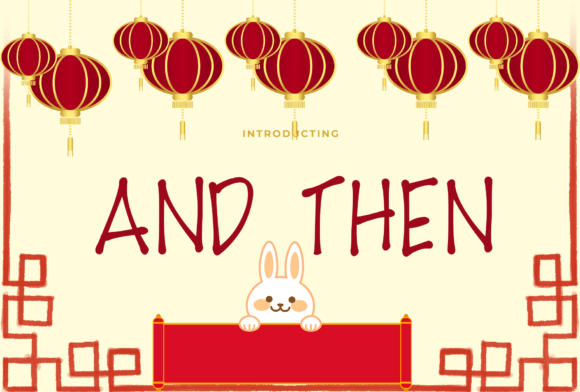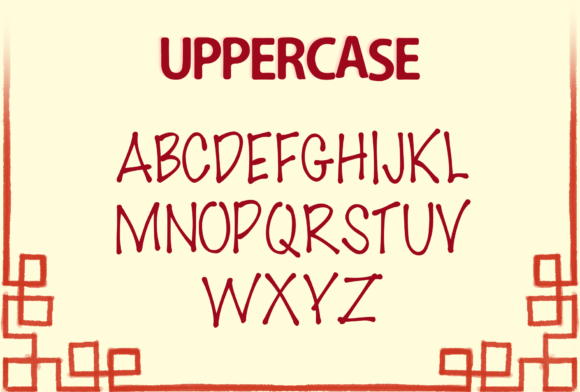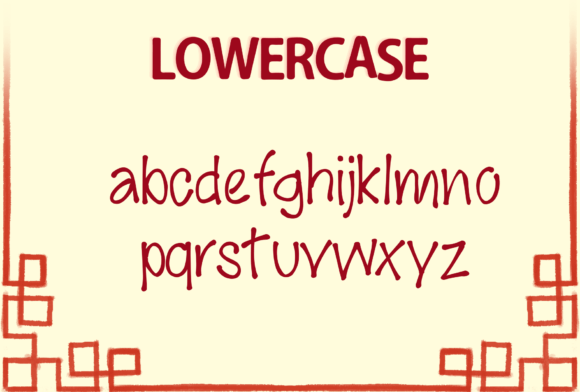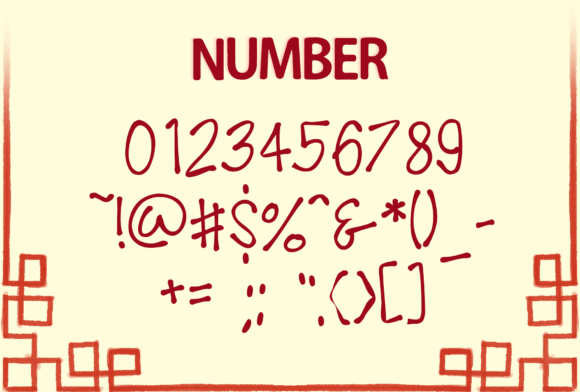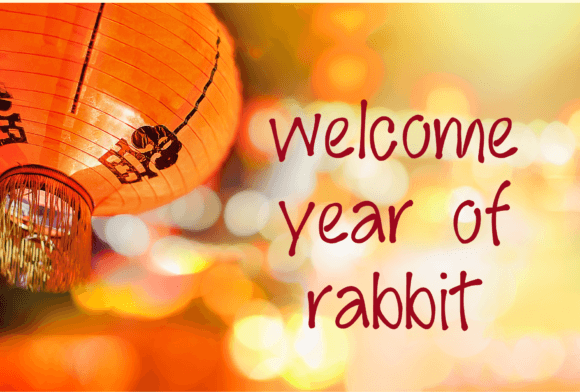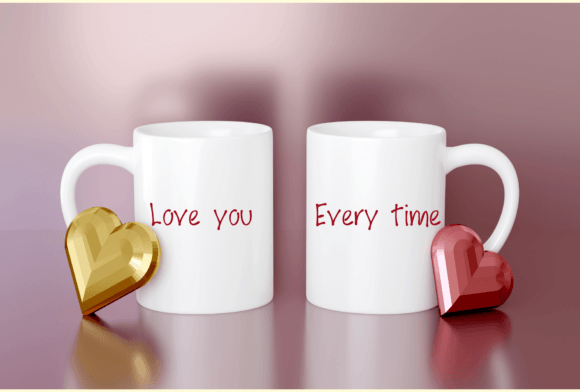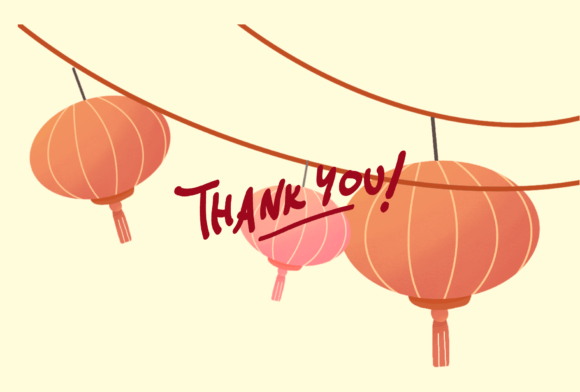
And then Font
A Cute and Charming Handwritten Script
And Then is an adorable handwritten font that brings a warm, personal feel to your designs. Each letter has smooth curves and friendly shapes that make your text look fresh and inviting. The playful style is perfect for work that should feel genuine and lighthearted.
This font blends casual elegance with a relaxed attitude. Whether you’re designing professional materials or personal projects, And Then will add a sweet touch that stands out.
And Then is a versatile font you can use in a variety of ways. It works beautifully on greeting cards, thank-you notes, and invitations. You can also use it for social media graphics, blog headers, and digital designs.
This font is great for crafts like stickers, labels, and scrapbooking. The charming shapes and clean lines help your creations feel joyful and authentic.
The font includes uppercase and lowercase letters, numbers, and punctuation marks. It also has ligatures to help your text flow naturally and feel complete.
Clear, Friendly, and Easy to Read
Even though And Then has a playful style, it stays clear and easy to read at any size. The consistent spacing between letters keeps your text organized, whether you’re using it for big titles or small captions.
Many designers pair And Then with clean sans-serif fonts. This combination creates a nice contrast and keeps your layout balanced. Use And Then for headlines and a simple font for body text. This approach guides your reader’s eye and helps your message shine.
To bring out And Then’s friendly style, use light backgrounds and soft color palettes. Pastel shades, ivory, and warm neutrals highlight the font’s curves without distraction.
If you’re creating designs for kids or special events, consider adding playful icons or simple illustrations. These details make your work feel even more personal and charming. For branding or digital design, keep your layout clean so the font can stand out.
Think about the mood you want to create. And Then is perfect for projects that should feel happy, approachable, and warm.
A Must-Have for Your Font Collection
And Then is more than just a cute script font. It’s a creative tool that turns ordinary text into something special. Its smooth strokes and inviting look make every project feel unique and personal.
Adding And Then to your font library gives you a reliable option for all kinds of creative work. From crafts and social media to packaging and invitations, this font adapts effortlessly to your ideas.